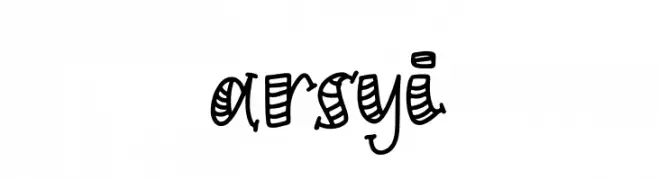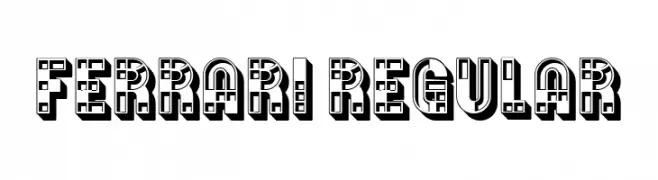
A bold, decorative font with diagonal stripe patterns for a dynamic look.
A bold, decorative font with a 3D effect and intricate interior patterns.
A bold and abstract collection of geometric shapes and symbols.
A bold, geometric display typeface with abstract shapes and patterns.
A decorative font featuring political party symbols for thematic use.
Whimsical decorative font using crow illustrations for each character.
A playful, decorative font with whimsical patterns and bold, rounded characters.
A bold, playful font with diverse patterns and textures, perfect for fun, youthful designs.
A bold, playful font with a unique striped pattern and cartoonish style.
A playful, hand-drawn font with whimsical, decorative elements.